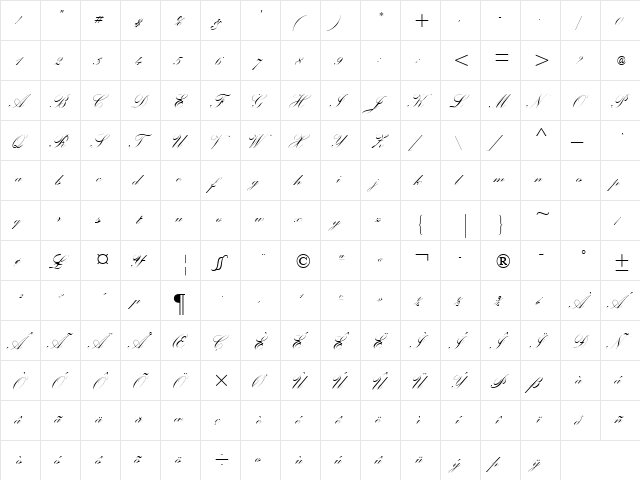
Palace Script MT Std Regular
Design Context for Palace Script MT Std Typeface
Palace Script MT Std flows with the natural rhythm of handwritten lettering, making it ideal for designs that call for warmth and personal expression.
Font Pairing: Combine Palace Script MT Std with a simple geometric sans for maximum contrast — the tension between flowing curves and clean structure is a classic typographic pairing.
Pro Tip: Pair Palace Script MT Std with a clean sans-serif for supporting text. The contrast between fluid script and geometric structure creates an elegant typographic hierarchy.